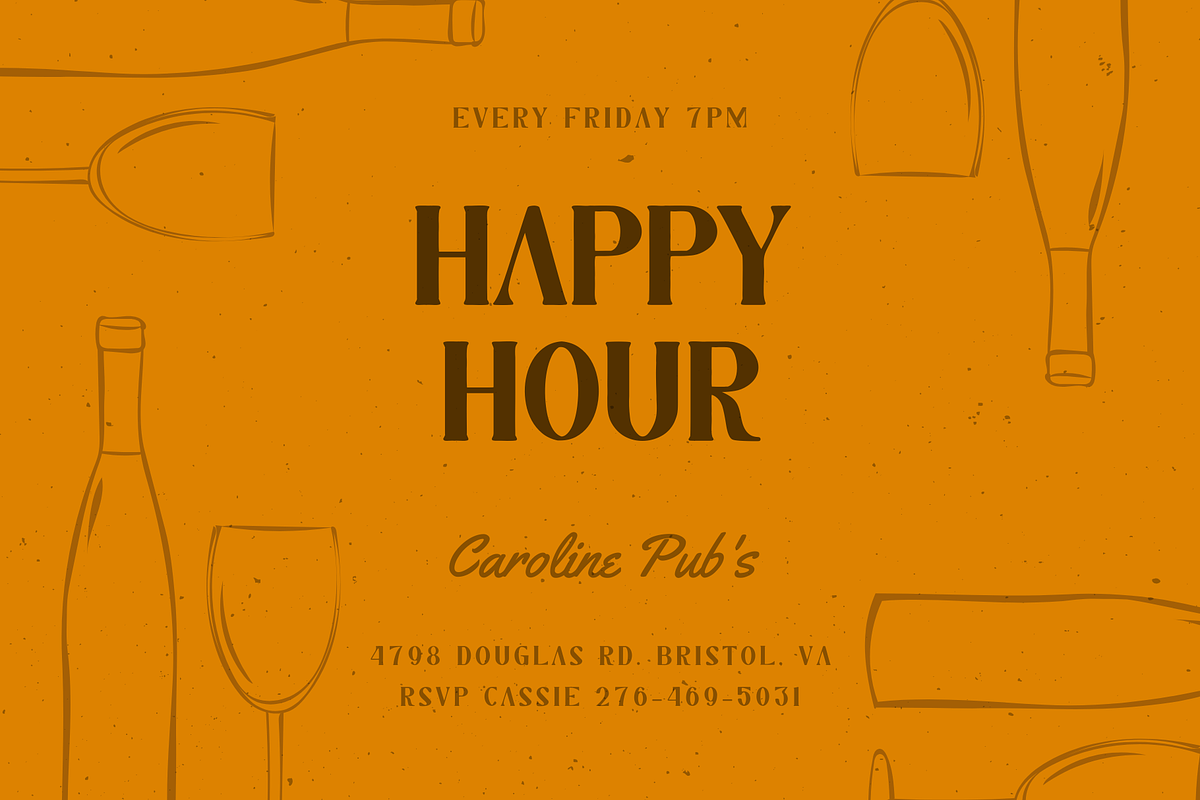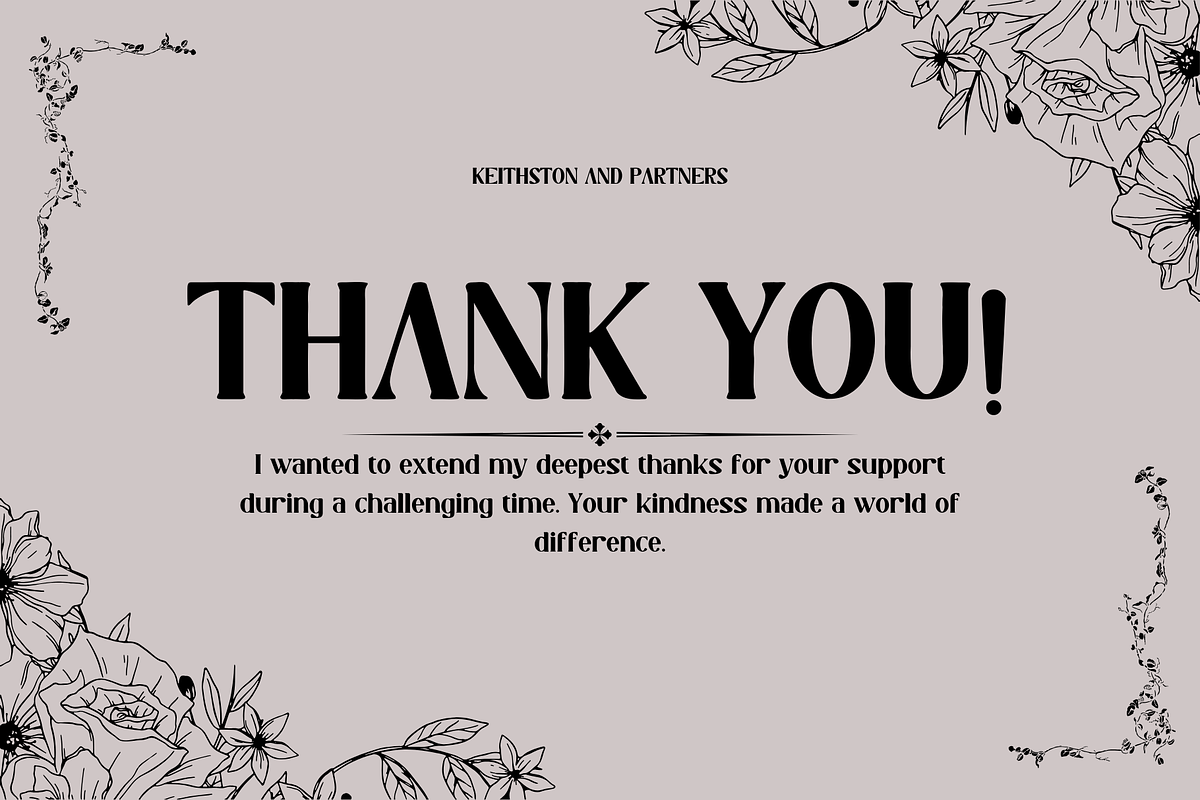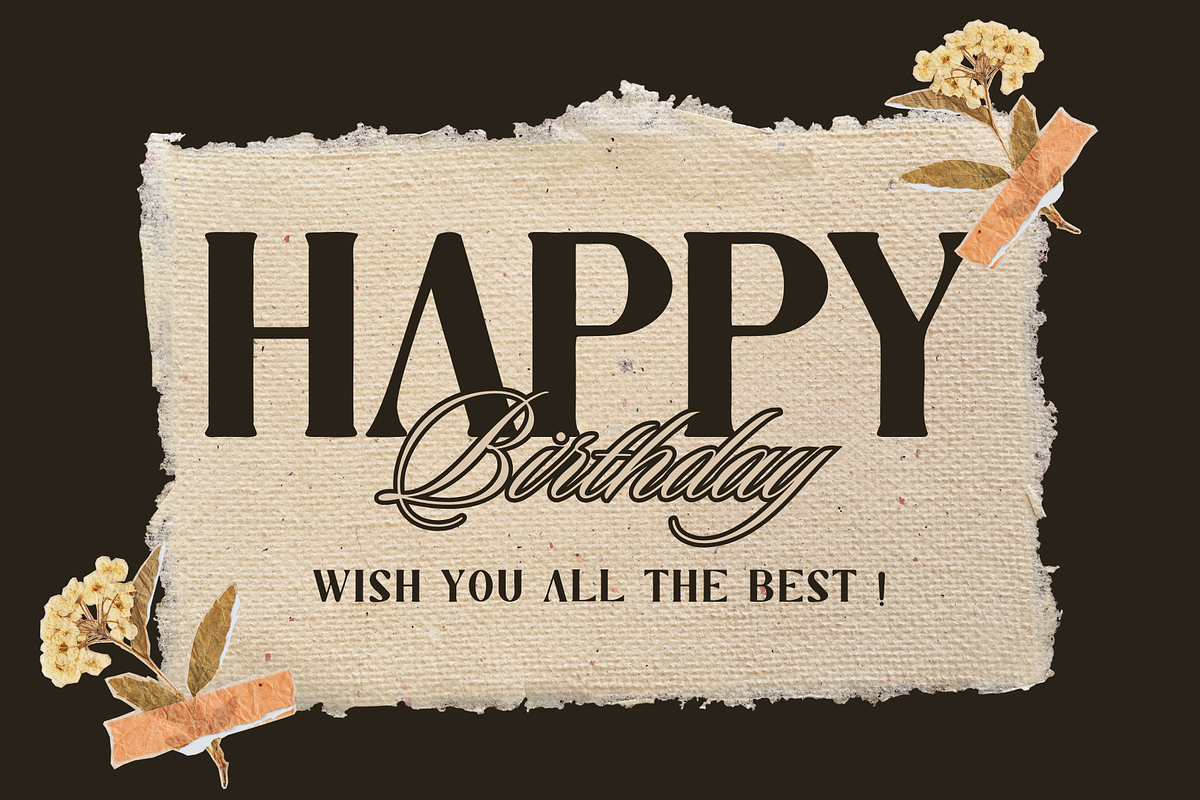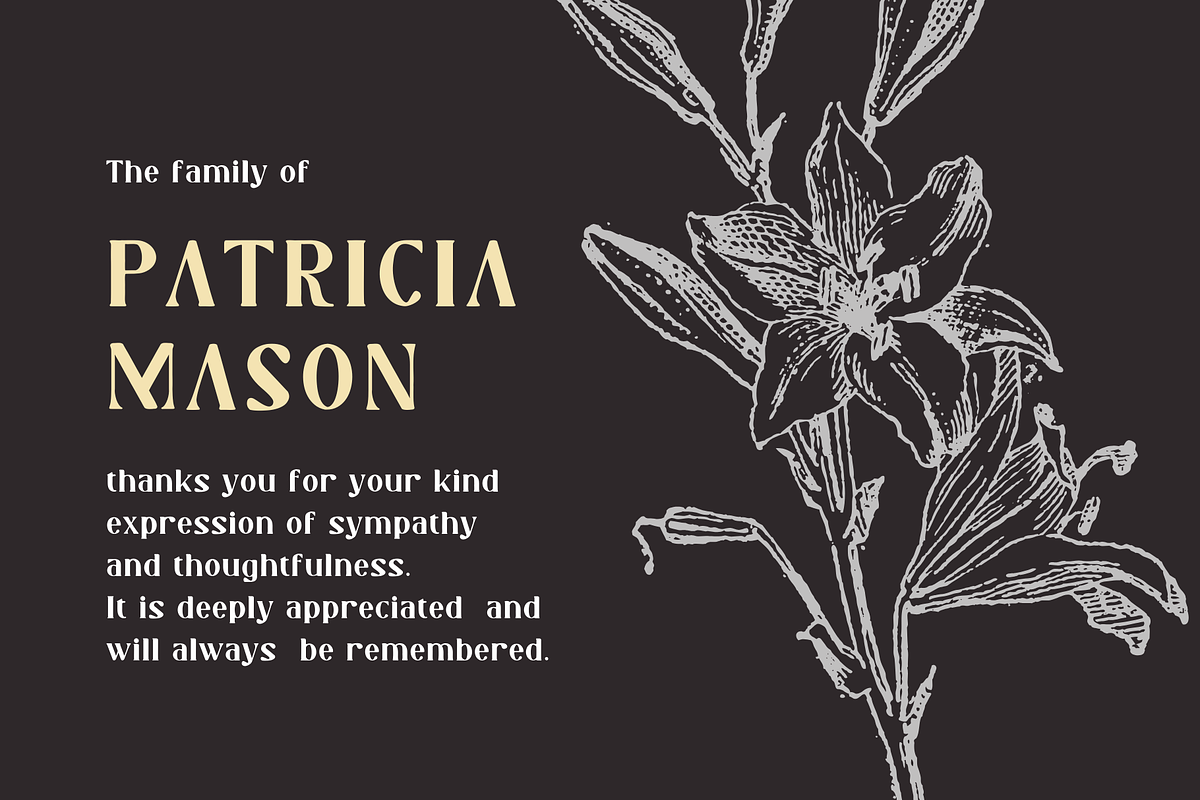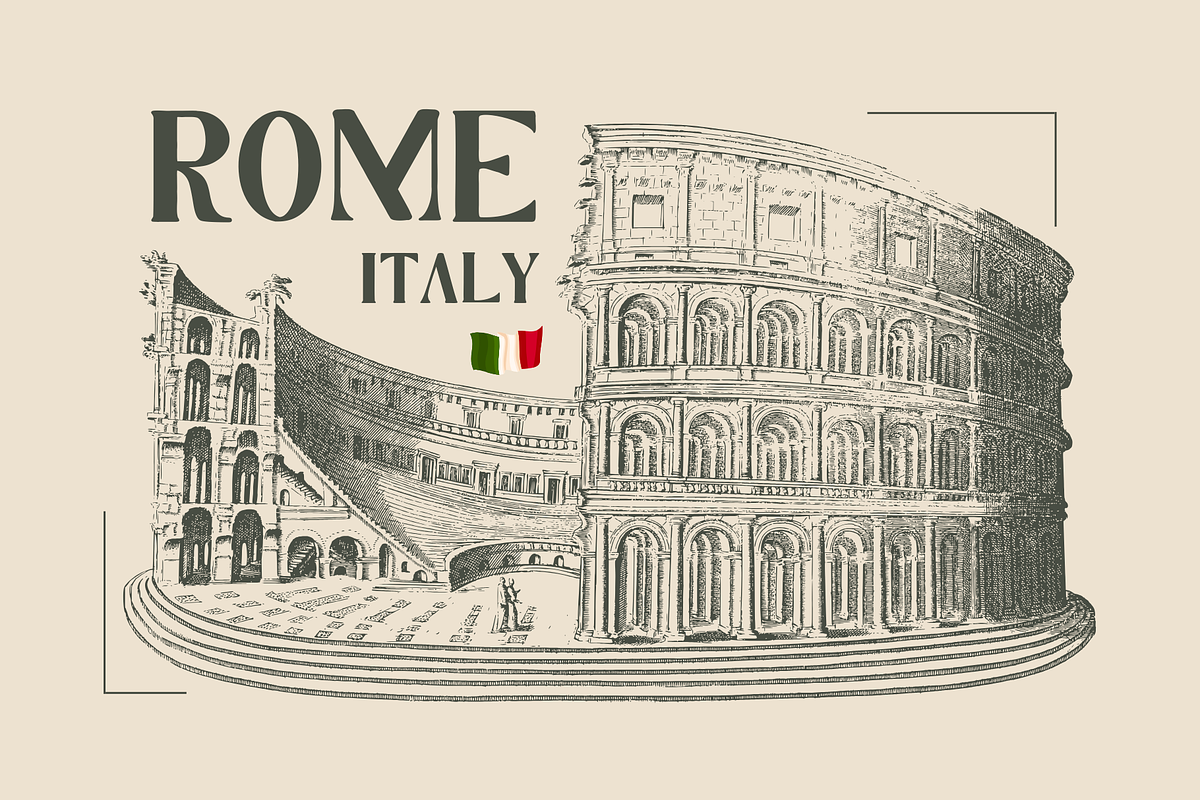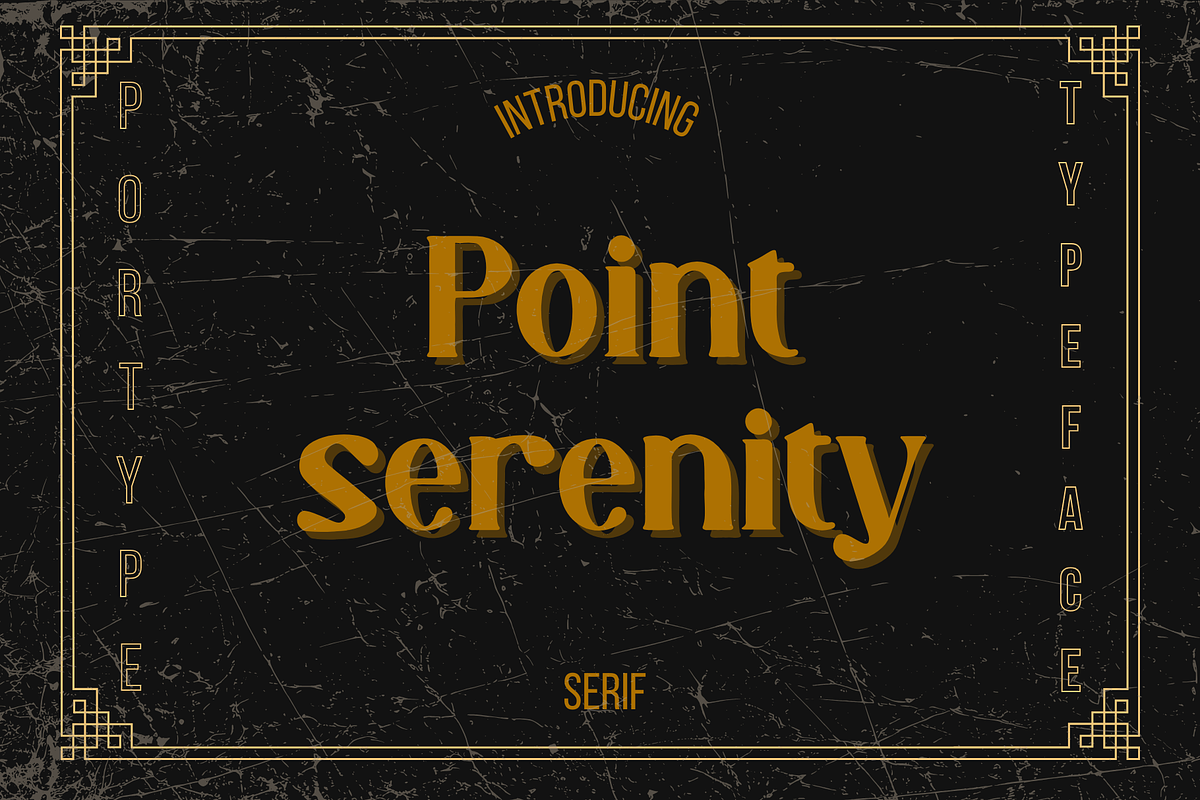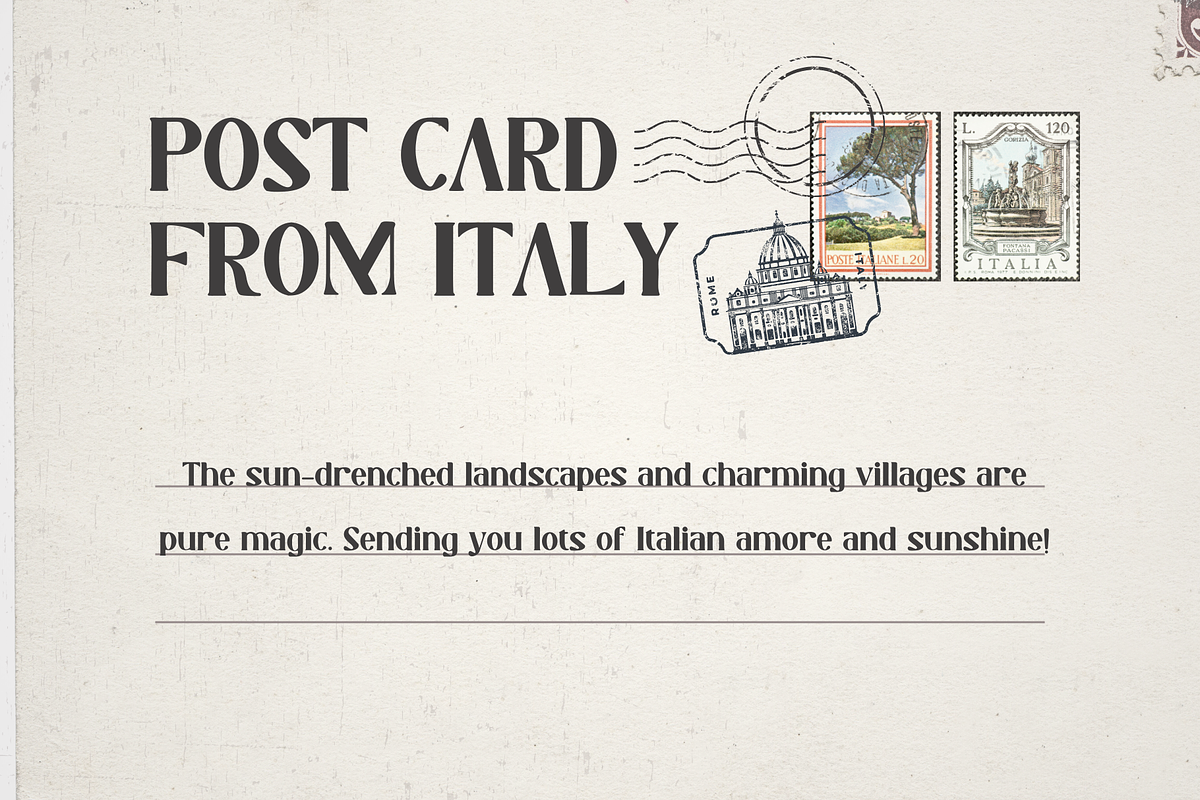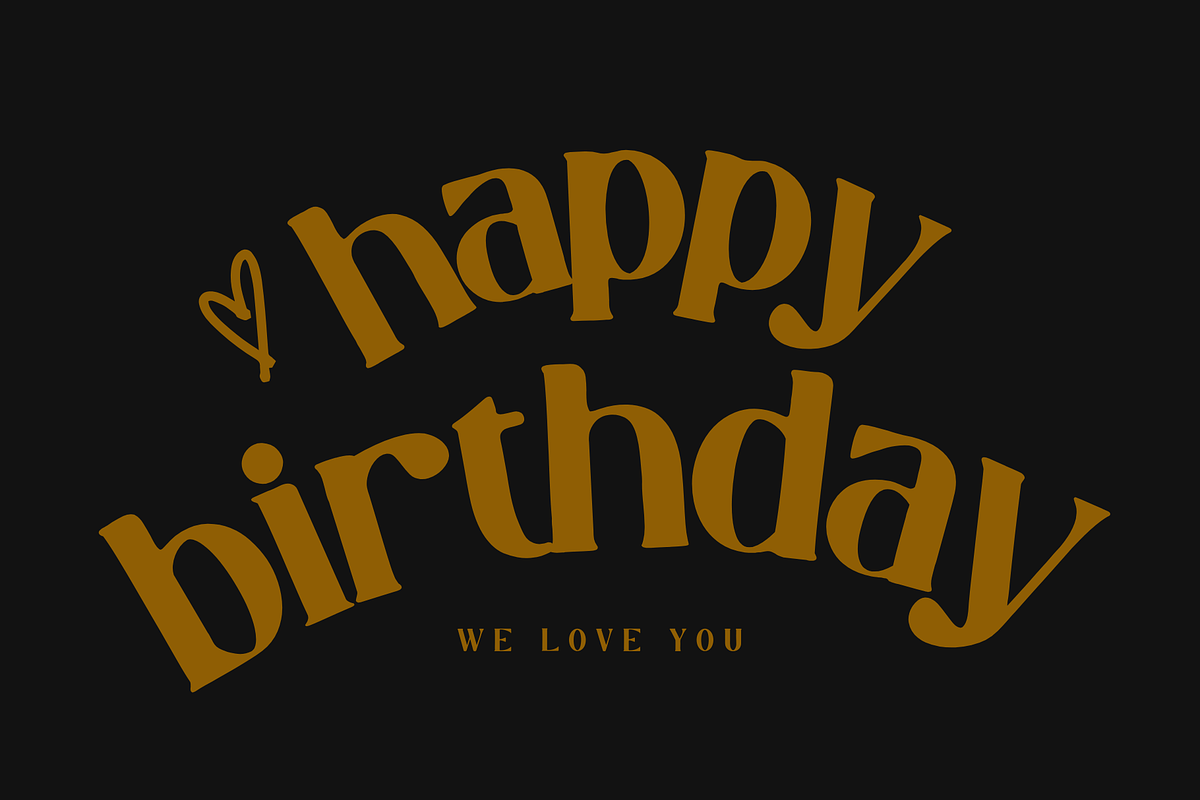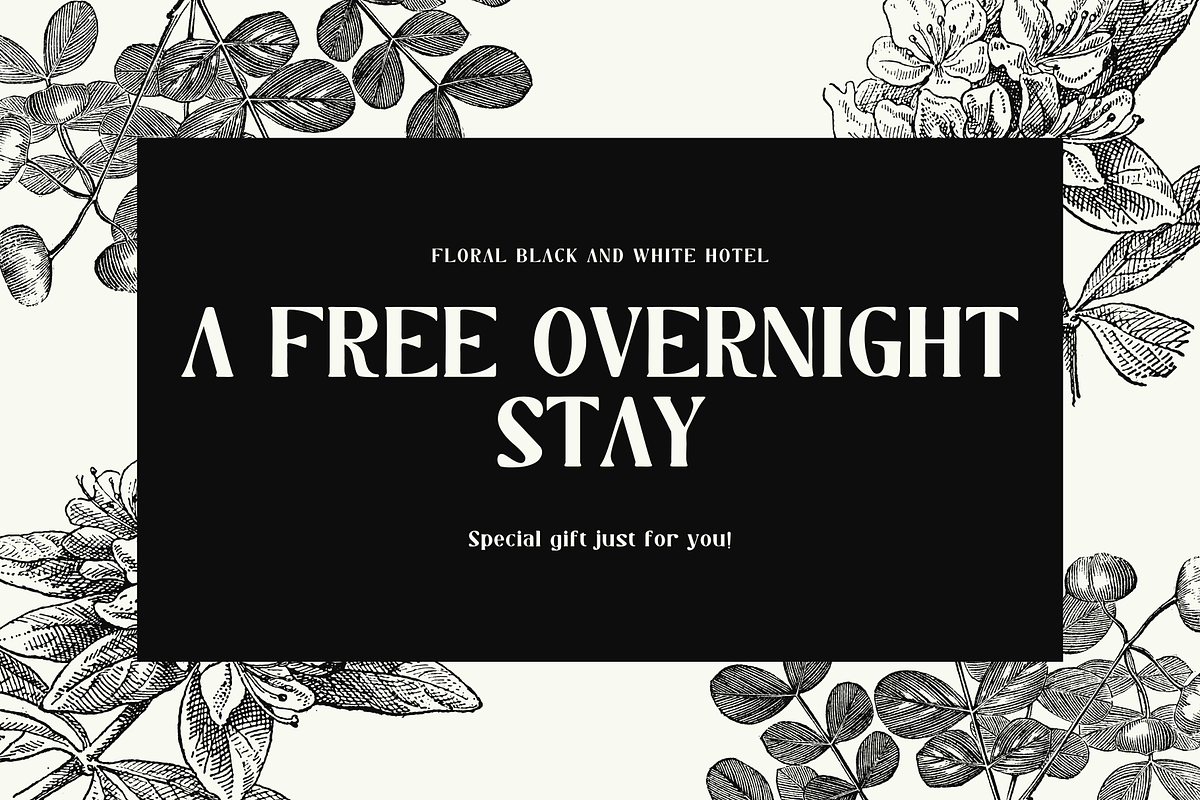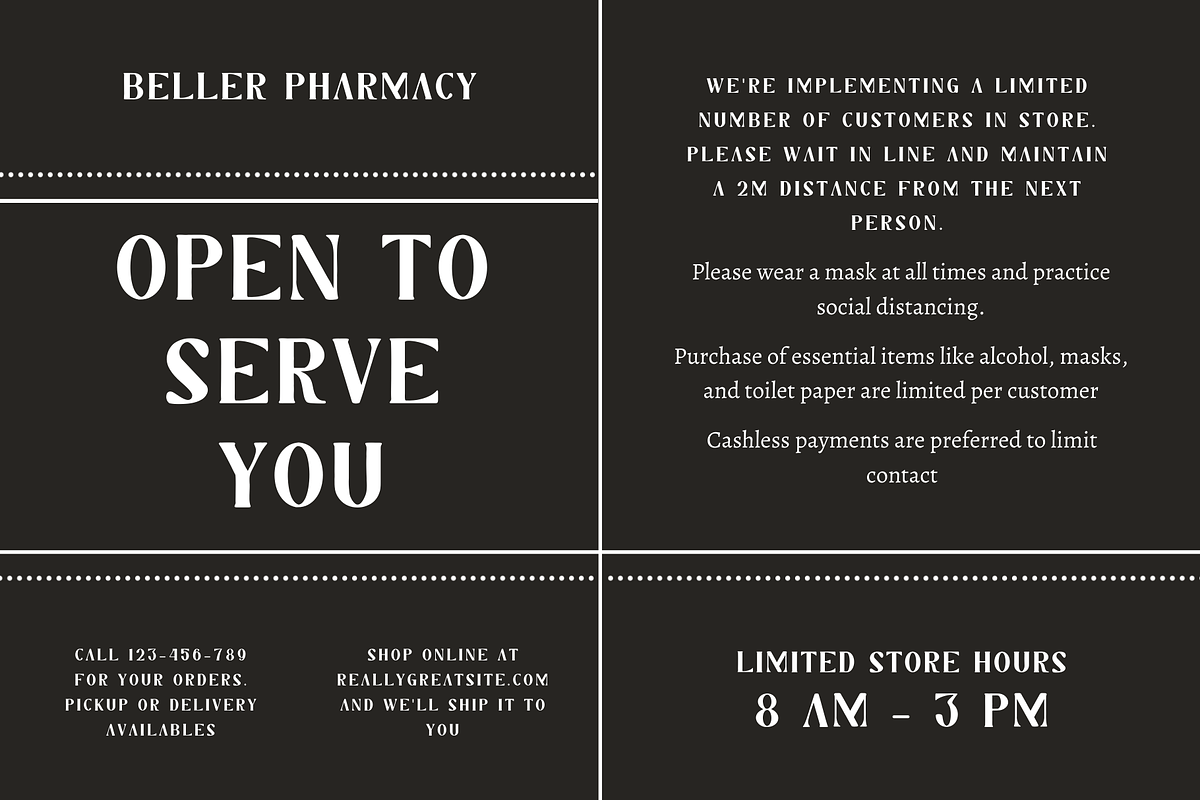
Point Serenity
Point Serenity is a unique serif typeface that beautifully combines vintage elegance with modern versatility. Inspired by early 20th-century typography, it features graceful curves and refined serifs, evoking a classic charm. The typeface also incorporates subtle dot accents, adding a distinctive flair.
Perfect for branding, editorial design, invitations, and packaging, Point Serenity’s casual yet sophisticated aesthetic suits a variety of design projects. Its high legibility ensures clarity in both print and digital formats. Choose Point Serenity to infuse your designs with timeless elegance and charm.